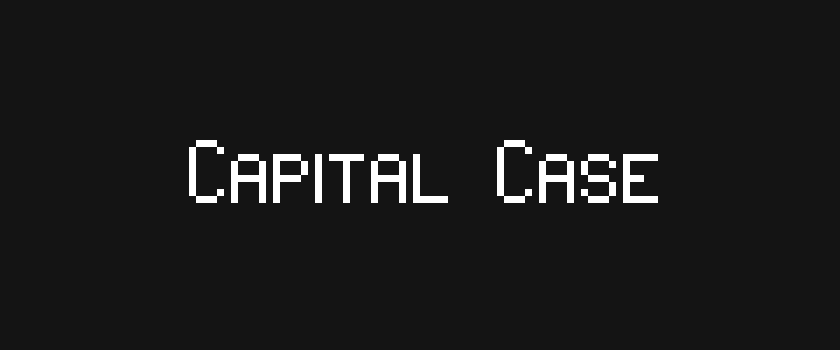
Capital Case - Pixel Font
Capital Case Pixel Font Update! - Now in Bold!
New update to Capital Case font! This update Includes - A few small changes to the original Capital Case font, for better visual appeal. A full new Bold version of the font is also now available! Enjo...
New Characters for more Language Support
Small update adding more characters to increase language support + character fixes and some small changes...
New Font Release - Capitol Case 9x5 pixel font
New CAPS only font with upper case being 9x5 and lower case is 7x5 Very generic letter style that looks clean and is easy to read Comes with more characters for extra language support...